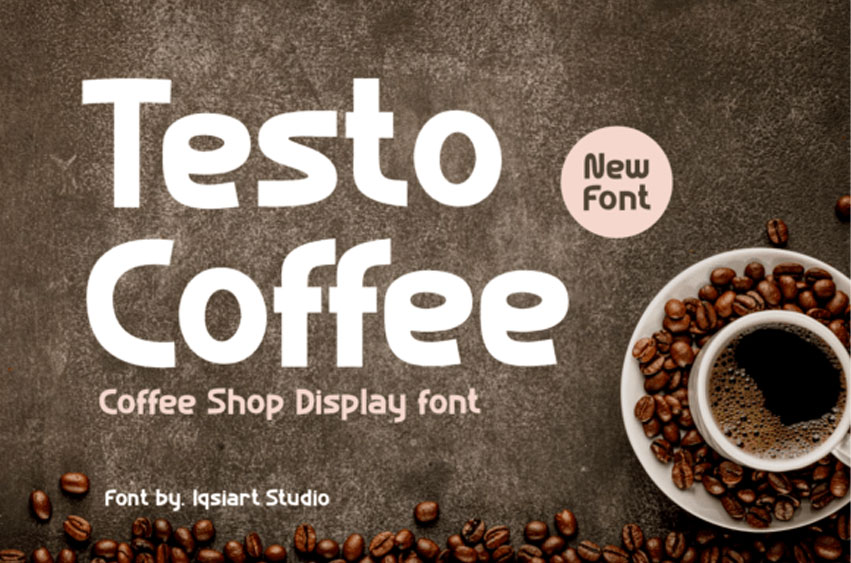
Testo Coffee Font is a bold and assertive sans-serif font.
No matter the topic, this font will be an incredible asset to your font library, as it has the potential to elevate any creation.